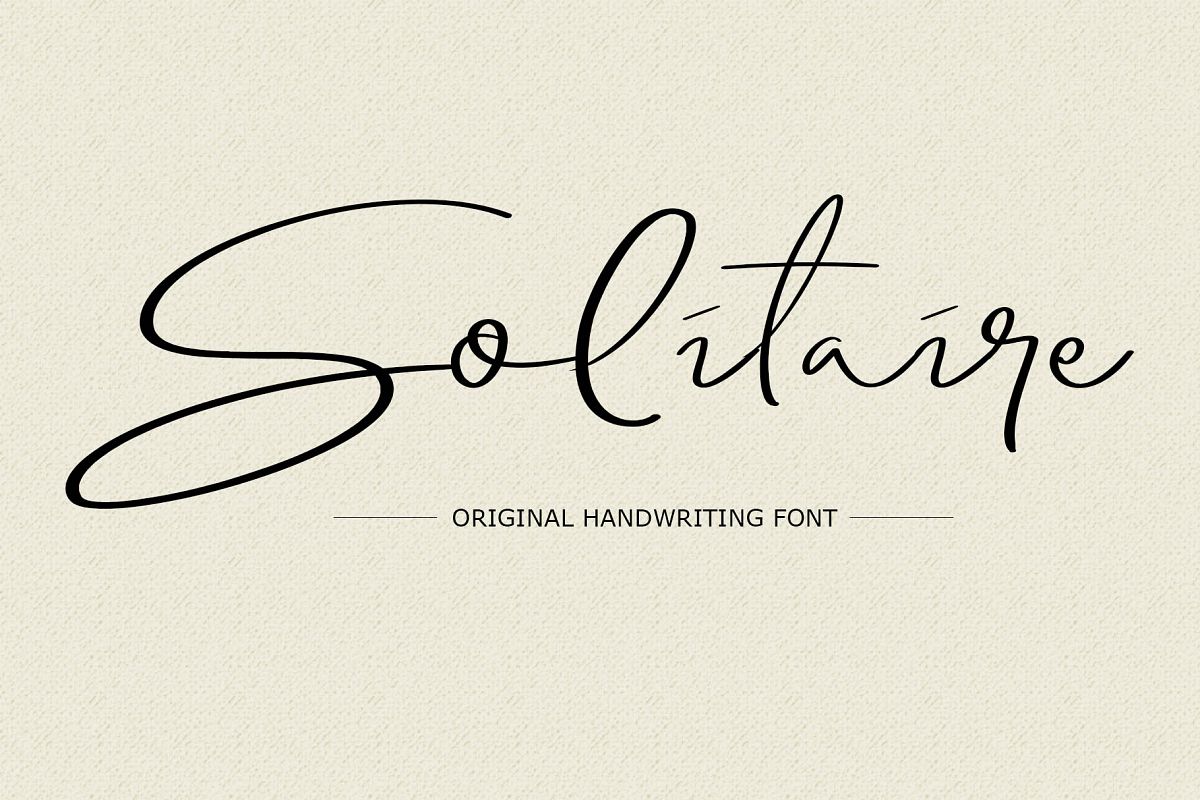
Hello there, Here is a new script font from us called Solitaire Font. Its's perfect for you to give your design an authentic touch. this is an original hand writing font so you can also use this for any logo or signature design.